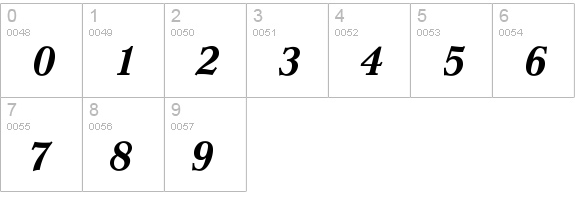
Cremona BQ Bold Italic Font Details
Cremona BQ Bold Italic is a strong, high-contrast, italic variant in the Cremona typeface family \xE2\x80\x94 well suited to headlines, attention-grabbing titles, and strong calls-to-action.
Cremona BQ Bold Italic font exudes a sense of sophistication and elegance with its bold, slanted design. This font is perfect for making a statement in headlines, titles, or any design project where you want to grab attention. The italicized style adds a touch of flair and personality to your text, making it stand out from the crowd. The Cremona BQ Bold Italic font is not only visually striking but also versatile, suitable for a wide range of applications from branding to editorial design. Its sleek and modern appearance makes it a great choice for projects that require a contemporary look. Best of all, Cremona BQ Bold Italic font is available for free download at FontsMarket.com. This means you can easily access this high-quality font without breaking the bank. Don't miss out on the opportunity to elevate your designs with the stunning Cremona BQ Bold Italic font today!